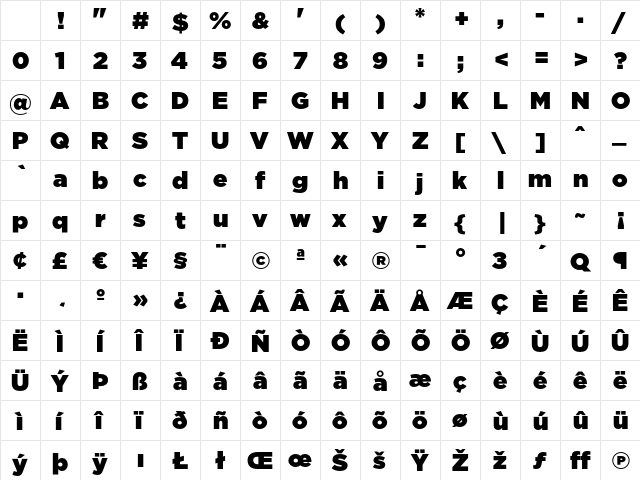
Complete GothamUltra Regular glyph index. Displaying only characters natively supported by GothamUltra Regular font.
GothamUltra is a composed and adaptable typeface that performs quietly and consistently across a wide range of design contexts.